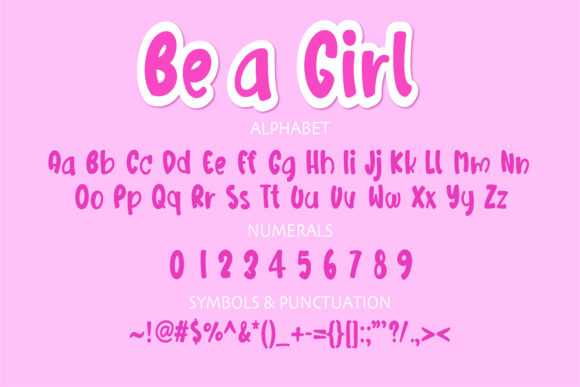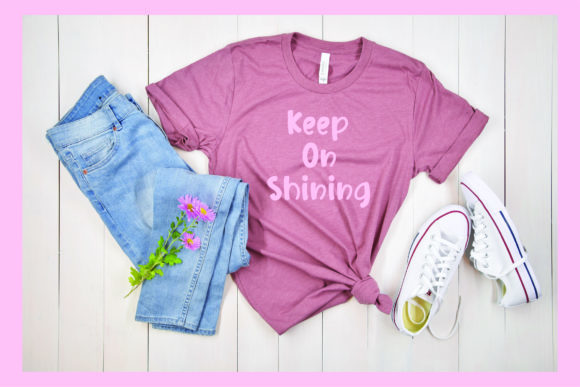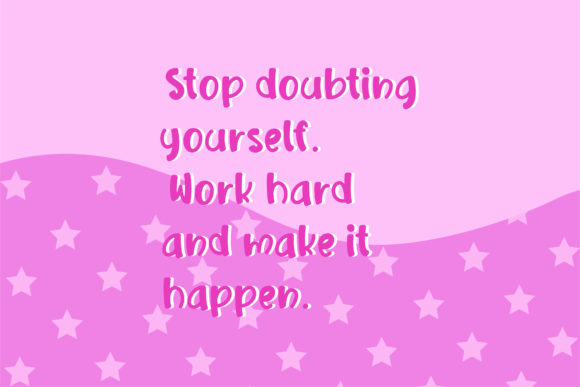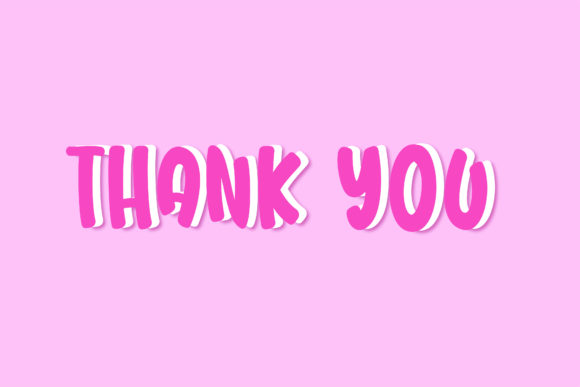
Introducing Be a Girl Font: The Ultimate Display Font for Creative Designs
In the world of typography, fonts play a crucial role in making or breaking a design. A perfect font can elevate your creative project, making it stand out from the crowd. If you’re a designer, crafter, or DIY enthusiast looking for a trendy and flexible display font, look no further than Be a Girl Font. This stunning font is designed to add a touch of elegance and whimsy to your designs, making it incredibly versatile for various projects.
What Makes Be a Girl Font So Special?
Be a Girl Font is a beautifully crafted display font that boasts a natural and unique style. Its distinctive charm makes it an excellent fit for a wide range of designs, from wedding invitations and greeting cards to logos and business cards. The font’s flexibility allows you to experiment with various design styles, ensuring that your creative project turns out exactly as envisioned.
Endless Design Possibilities with Be a Girl Font
One of the most exciting aspects of Be a Girl Font is its incredible versatility. Whether you’re designing a wedding invitation, a thank you card, or a quote, this font is sure to impress. Here are some design ideas to get you started:
- Wedding Invitations: Add a touch of romance and elegance to your wedding invitations with Be a Girl Font. Its beautiful, flowing curves make it perfect for formal and informal wedding designs.
- Thank You Cards: Express your gratitude in style with Be a Girl Font. The font’s unique charm makes it ideal for creating personalized thank you cards for special occasions.
- Quotes and Inspirational Messages: Add a touch of inspiration to your quotes and messages with Be a Girl Font. The font’s elegant style makes it perfect for creating stunning social media graphics, posters, and flyers.
- Greeting Cards: Create beautiful greeting cards for birthdays, holidays, and special occasions with Be a Girl Font. The font’s flexibility allows you to experiment with various design styles and colors.
- Logos and Business Cards: Take your branding to the next level with Be a Girl Font. The font’s unique style makes it perfect for creating stunning logos and business cards that reflect your brand’s personality.
Why Choose Be a Girl Font?
With so many fonts available, why choose Be a Girl Font? Here are just a few reasons why designers and crafters love this beautiful font:
- Unique Style: Be a Girl Font boasts a unique and natural style that sets it apart from other fonts.
- Flexibility: The font is incredibly versatile, making it perfect for various design projects.
- Elegant and Whimsical: Be a Girl Font combines elegance and whimsy, making it ideal for creating stunning designs that capture attention.
Tips for Getting the Most Out of Be a Girl Font
To get the most out of Be a Girl Font, here are some design tips to keep in mind:
- Experiment with Colors: Be a Girl Font looks stunning in various colors. Experiment with different hues and shades to find the perfect combination for your design.
- Play with Sizes: The font’s flexibility allows you to experiment with various sizes. Try using different font sizes to create visual interest and hierarchy in your design.
- Mix and Match: Don’t be afraid to mix and match Be a Girl Font with other fonts. The font’s unique style makes it perfect for pairing with other typography styles.
Be a Girl Font is a stunning display font that’s perfect for designers, crafters, and DIY enthusiasts looking to add a touch of elegance and whimsy to their designs. Its unique style, flexibility, and ease of use make it an excellent choice for various design projects. Whether you’re creating wedding invitations, greeting cards, logos, or business cards, Be a Girl Font is sure to impress. So why wait? Download Be a Girl Font today and explore its endless design possibilities!